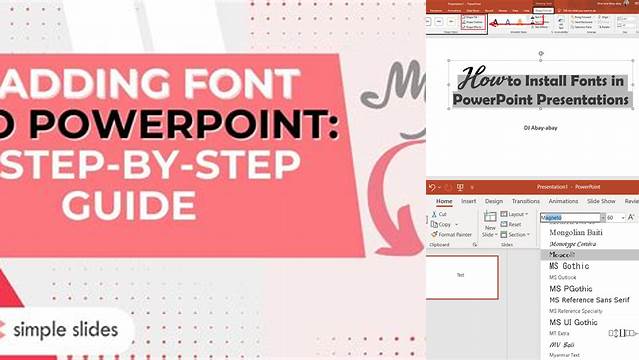
Install Fonts In PowerPoint: A Step-by-Step Guide
Hey guys! Ever felt like your PowerPoint presentations are missing that special something? Chances are, the fonts you're using might be the culprit. A fresh, new font can breathe life into your slides and make your message pop! This guide is all about how to install fonts in PowerPoint, so you can take your presentations from bland to grand! We'll cover everything from finding the right fonts to getting them installed and ready to use. Let's dive in!
1. Why Install Custom Fonts in PowerPoint?
So, why even bother installing custom fonts? PowerPoint comes with a decent selection, right? Well, using custom fonts can really set your presentations apart. Think about it: your audience sees the same default fonts all the time. A unique font can grab their attention and reinforce your brand or message. Plus, it just looks more professional! Exploring how to install fonts in PowerPoint opens up a world of creative possibilities, allowing you to truly express your ideas visually. Imagine having the perfect font that matches the tone and style of your presentation – powerful, right? Let's make it happen!
2. Finding the Right Fonts for Your Presentation
Before we jump into the technical stuff, let's talk about finding the right fonts. Not all fonts are created equal, and some are definitely better suited for presentations than others. You want fonts that are clear, legible, and easy on the eyes. Think about your audience and the message you're trying to convey. A playful font might be great for a kids' presentation, but not so much for a serious business meeting. When learning how to install fonts in PowerPoint, remember that font choice matters. Websites like Google Fonts and DaFont offer a huge variety of free fonts that you can download and use. Take some time to browse and find a few that you love!
3. Downloading Fonts for PowerPoint
Okay, you've found some awesome fonts – now what? The next step is downloading them! Most font websites will offer fonts in either .ttf (TrueType Font) or .otf (OpenType Font) format. Both are fine for PowerPoint, so don't worry too much about the difference. Just click the download button (it usually says something like "Download," "Get Font," or has a little arrow pointing down) and save the font file to your computer. A pro tip for how to install fonts in PowerPoint efficiently: create a dedicated folder on your desktop for your downloaded fonts. This will keep things organized and make the installation process a breeze. Make sure the site you're downloading from is reputable to avoid any dodgy files.
4. Installing Fonts on Windows
Alright, let's get down to the nitty-gritty! If you're a Windows user, installing fonts is pretty straightforward. Here's the breakdown:
- Find your downloaded font file: Remember that folder you created? Head there now.
- Right-click on the font file: You'll see a menu pop up.
- Select "Install": That's it! Windows will automatically install the font. If you have an older version of Windows, you might see an "Install for all users" option – go ahead and click that if it's there. This step is crucial in understanding how to install fonts in PowerPoint effectively. Your computer might ask for administrator permissions – just say yes!
- Restart PowerPoint (if it's open): This is important! PowerPoint needs to reload the font list to see the new font.
Congratulations, you've installed a font on Windows! Easy peasy, right?
5. Installing Fonts on macOS
Mac users, don't worry, the process is just as simple! Here's how to install fonts in PowerPoint on a Mac:
- Find your downloaded font file: Back to that font folder!
- Double-click on the font file: This will open Font Book, macOS's font management application.
- Click "Install Font" at the bottom of the Font Book window: Font Book will validate the font and install it.
- Restart PowerPoint (if it's open): Same as Windows, PowerPoint needs to refresh its font list.
Boom! You're a font-installing pro on macOS too!
6. Finding Installed Fonts in PowerPoint
Now that you've installed your fonts, how do you actually use them in PowerPoint? It's simple!
- Open PowerPoint: Start up your presentation.
- Select the text you want to change: Highlight the words you want to give a font makeover.
- Go to the "Home" tab: Look for the font dropdown menu in the "Font" group.
- Scroll through the list and find your new font: It should be there, listed alphabetically! Click on it to apply it to your selected text. Now you know how to install fonts in PowerPoint and use them!
If you don't see your font, double-check that you restarted PowerPoint after installing it. Sometimes, a little refresh is all it needs.
7. Troubleshooting Font Installation Issues
Okay, sometimes things don't go quite as planned. Don't panic! Here are a few common issues and how to fix them:
- Font doesn't appear in PowerPoint: Make sure you restarted PowerPoint after installing the font. If it's still not there, try restarting your computer. Sometimes, a full reboot is what's needed.
- Font looks weird or doesn't display correctly: This could be a font corruption issue. Try downloading the font again from a different source. It's also possible that the font isn't compatible with PowerPoint – some fonts are designed for specific programs or uses.
- Error message during installation: This could be a permissions issue. Make sure you have administrator rights on your computer. If you're still having trouble, try right-clicking on the font file and selecting "Run as administrator" (Windows).
20. Using Color with Fonts
Color plays a big role in readability. Make sure your font color contrasts well with your background color. Light text on a dark background or dark text on a light background is generally the easiest to read. Font color is an important consideration beyond just how to install fonts in PowerPoint.
21. Serif vs. Sans-Serif Fonts
Serif fonts have small strokes or